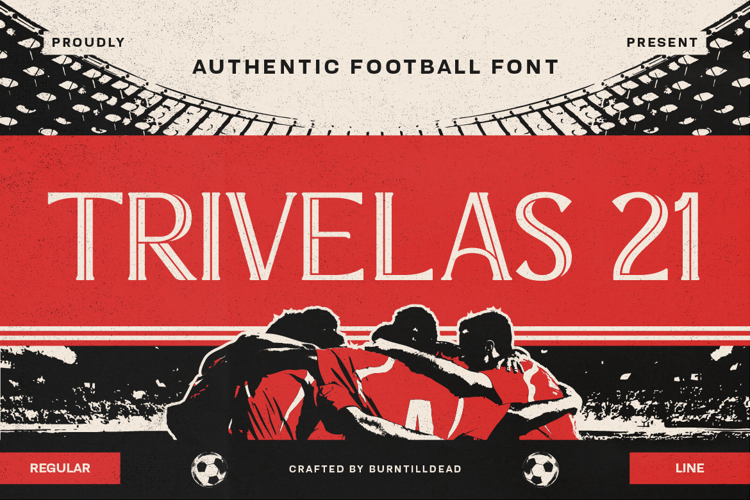
Trivelas 21 Font
Trivelas21 is an authentic football-inspired font built to capture the raw passion of the game. Designed with classic sports typography in mind, this typeface blends strong letterforms, elegant curves, and vintage details commonly seen in legendary football posters, match programs, and championship headlines.